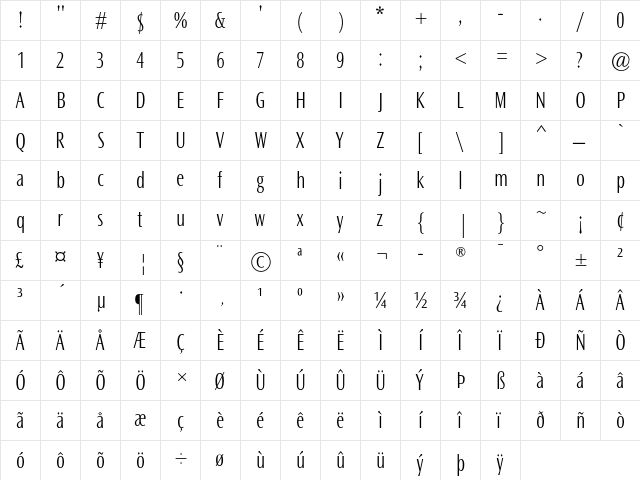
Ocean Sans MT Pro Light Cond
| Designer | Chong Wah |
Design Context for Ocean Sans MT Pro Typeface
Ocean Sans MT Pro offers clean, dependable letterforms without strong stylistic allegiance, making it a practical choice for designers who need flexibility. Its slender proportions lend an understated elegance to any composition. Its narrow stance lets it pack a punch even in space-constrained designs.